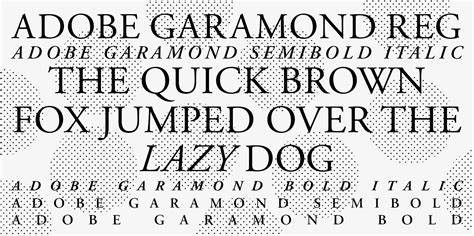
Garamond Font Example. A serif typeface with 6 styles, available from adobe fonts. Web explore adobe garamond designed by robert slimbach at adobe fonts.
A serif typeface with 6 styles, available from adobe fonts. Web this specimen shows garamont’s roman and granjon’s italic types at different sizes. Web explore adobe garamond designed by robert slimbach at adobe fonts. Hence the name of this project:
Hence the name of this project: Web this specimen shows garamont’s roman and granjon’s italic types at different sizes. A serif typeface with 6 styles, available from adobe fonts. Web explore adobe garamond designed by robert slimbach at adobe fonts. Hence the name of this project: